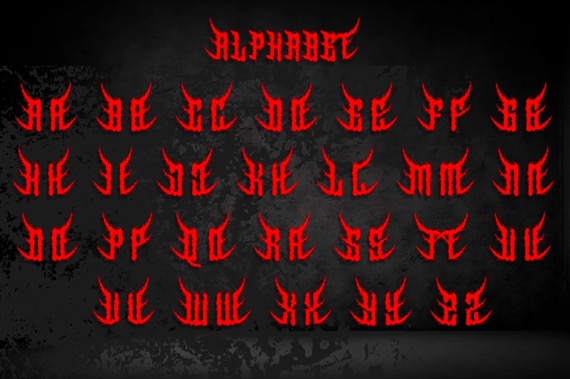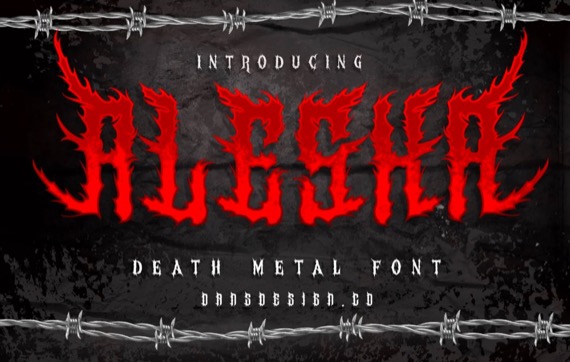
Introducing a spooky display typeface from Dans Design, AlesA Modern Metal Horror Font is distinct, highly detailed, and Horror Metal Font font. It would make a great choice for exquisite Music, Poster, retro-urban designs, tattoo business branding, logos, vintage designs, and more.
Alesa Spooky Display Font